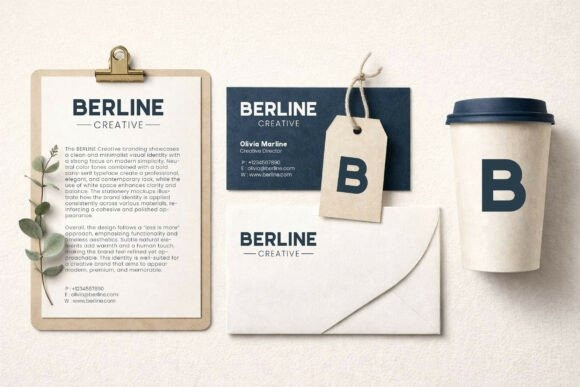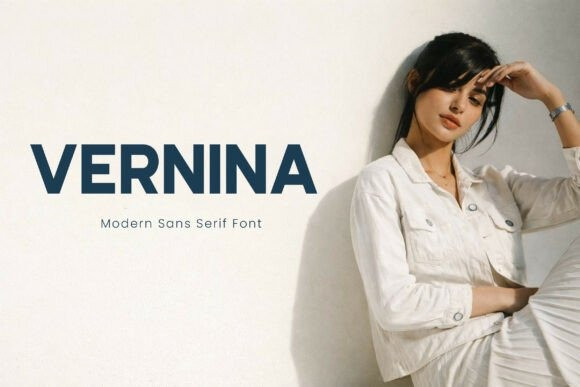
Vernina Font
Vernina Font a sophisticated sans-serif designed for premium branding.This sleek Vernina typeface features balanced proportions and clean, sharp terminals, making it an exceptional choice for luxury lifestyle magazines, cosmetic packaging, and high-end boutique logos. Because of its professional and airy feel, the Vernina font works perfectly as a hero header on minimalist websites or as a clean secondary font for editorial spreads.
Pair it with high-contrast fashion photography or soft, neutral palettes to create a visual identity that radiates confidence, intelligence, and contemporary style. It is the ultimate tool for designers looking to achieve a “quiet luxury” aesthetic that feels both current and timeless.